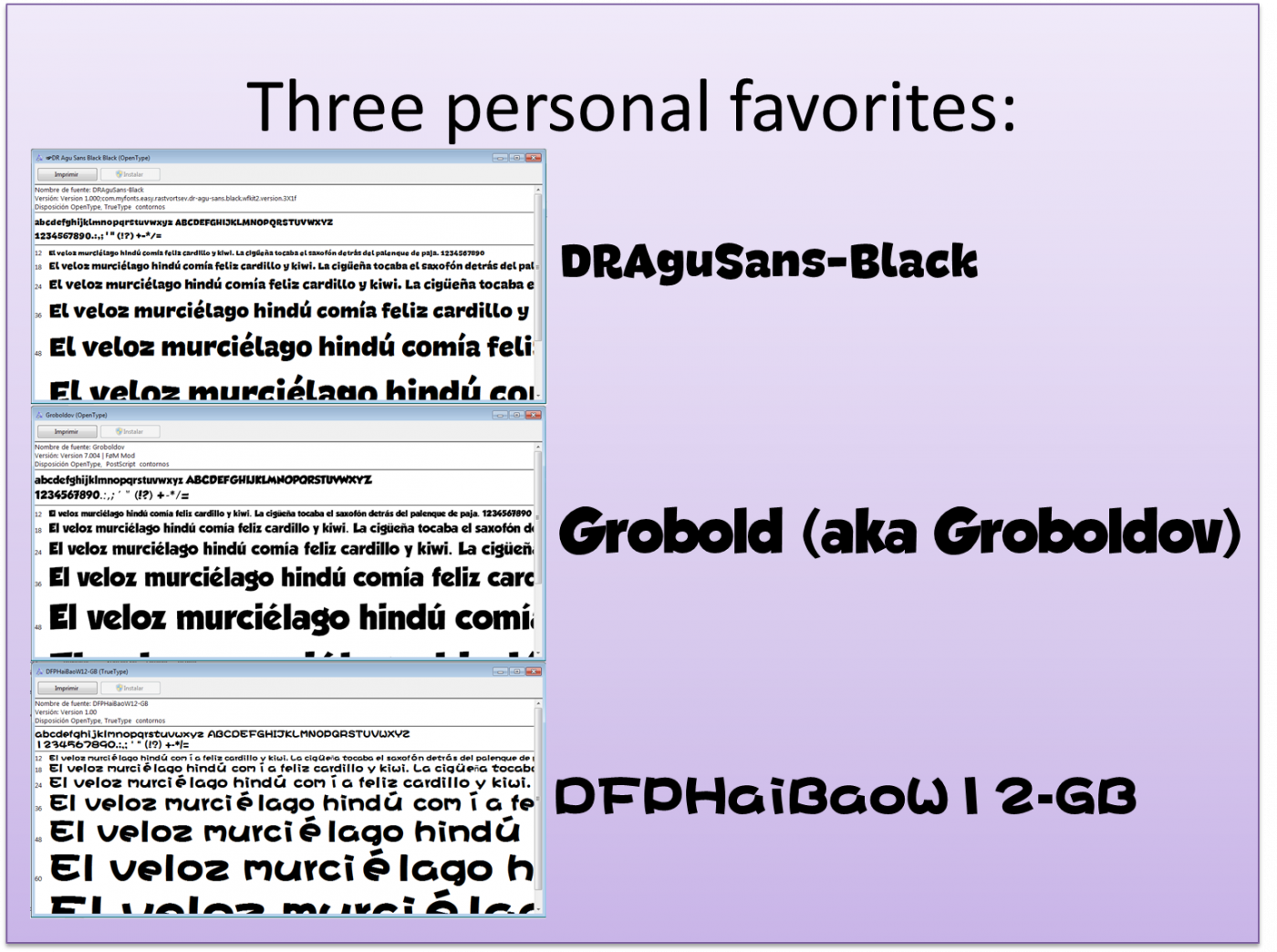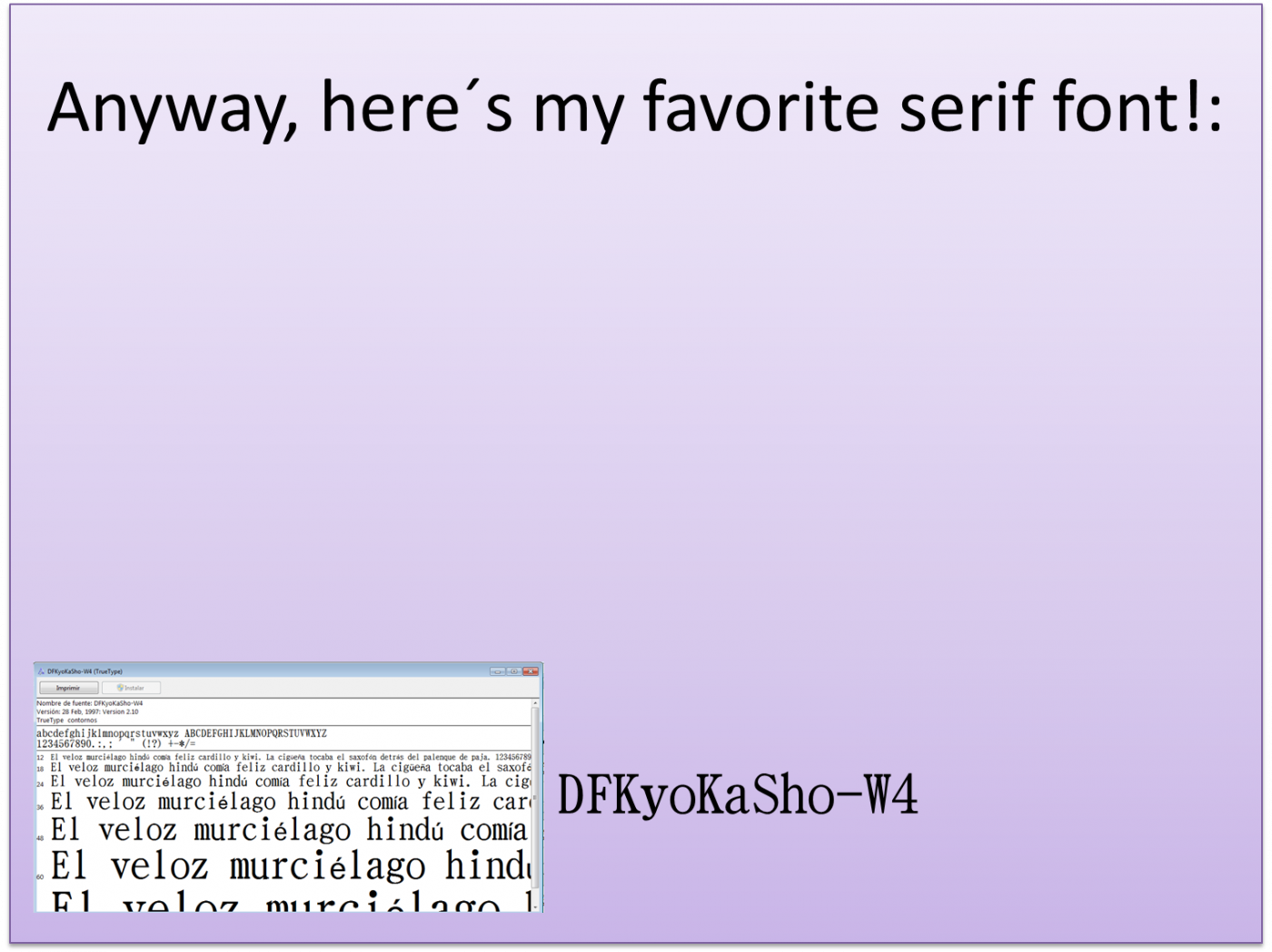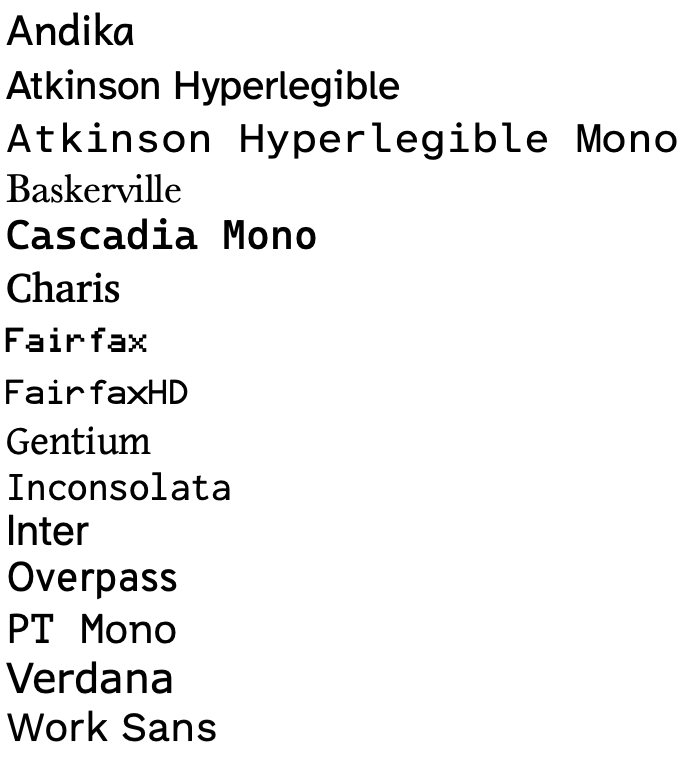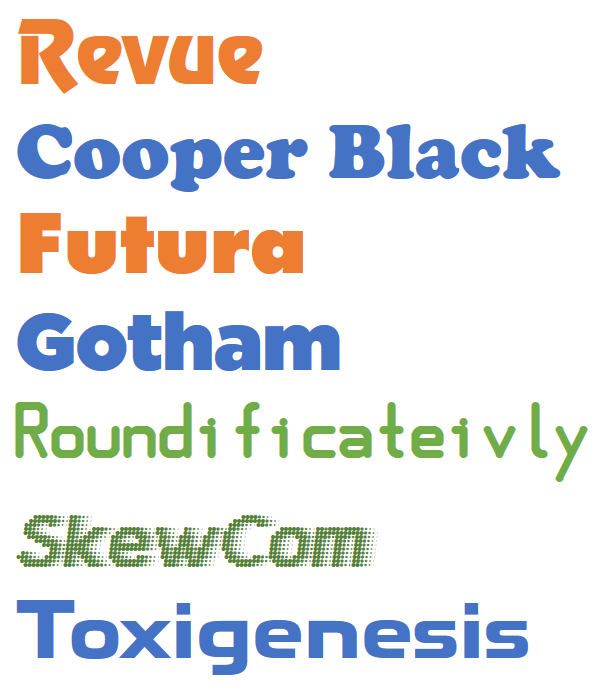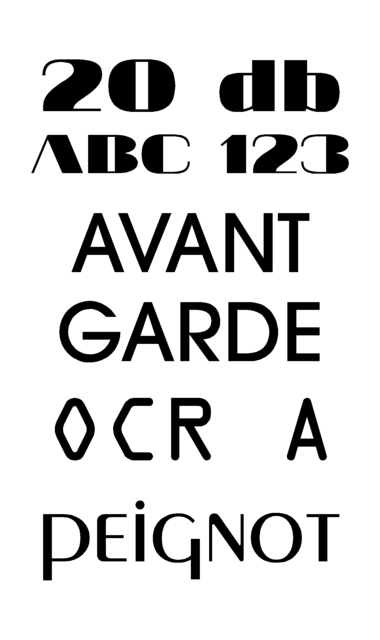
• What's your favorite font? Post a sample!
What's your favorite font? Post a sample!
Verlag by HF&J.
Some of my faves
I know it comes with every windows computer, but my favourite font is Rockwell by Monotype Foundry
Yautja, what is that first one?
My favourite, serif, sans, script and display typefaces.
20 db. :)
my favourite is insider
To be honest, I'm not sure what's my favorite font xD
Oups! Sorry, Image didn't load before. Again: My favourites are:
I love Friz Quadrata, Gill Sans, Exocet, Palatino, Optima, Gilgamesh, and particularly Electra.
Here are just a few
I also enjoy DIN, Kimberley, Lighthouse, and Luxi Mono.
This:
I think if anyone said "Comic Sans" then they would be burned by the Fontstruct community xD
Thanks demonics for this forum providing me the occasion to show that if my work seems out of everything, actually it does not come from nowhere. In the decade preceding my signing here i collected many innovative out of norm fonts. Here are some of those which had a deep impact on what would become later my own typographic world. As i am now re-working the whole cycle of my fonts trying to push it at an even higher quality level, it's good to see once again "where i'm coming from"
AFT, glad to have you back! I really like Cropograph and Gammelfitta
This question is like "Which song's your favorite?". Oh there are so many... But, here are the popular ones I like that first pop into mind:
@architaraz : "arista" is almost the only textfont i really like (they're so boring usually) and it's the one i use in my Big Book for the texts. The arista designers could find a surprising compromise between beauty, originality of shapes and perfect legibility and functionality at all sizes, without any fatigue on long text reading, what should categorize a textfont.
"What you prefer, mommy or dad?"... Well, I live with a lot of people more around me:... With a grandma, a grandpa, a niece, a cousin, a boyfriend or a girlfriend, a policeman or an iceman in their van... And with a lot of people making excellents fonts here at FS! What can I do more than this?
...All of you and your fonts, people!!!
Okay, its official. I'm a sucker for slab serif
theres many more slabs that i love, these are a few along with futura
gotham. whitney. mercury. topaz. iowan old style. these are my fav fonts. they are mostly from h&fj. they are amaztaslicious.
WOW! the h+fj website knocked my socks off. I got inspired by Tungsten, now off to make a condensed bold sans serif. :)
My favs.
And this …
Mmmm Hmmmm...
Serapion my favorite serif font, Gill Sans - favorite sans.
Tip: Lucida Console has terrible proportions but its brother Lucida Sans Typewriter is pretty cool.
here
here x2
My current favorite fonts installed in my computer.
green: made in fontstruct
Curvex is green, and it is my own favorite font—with all my blood, sweat and tears!